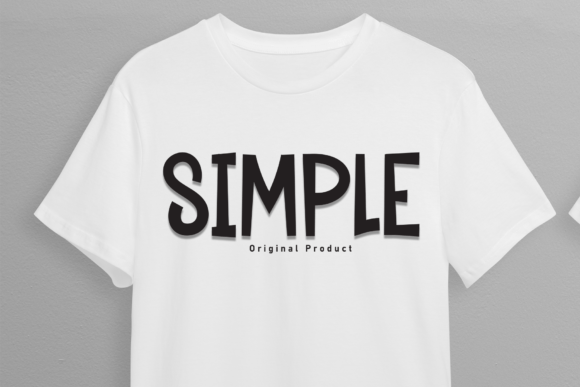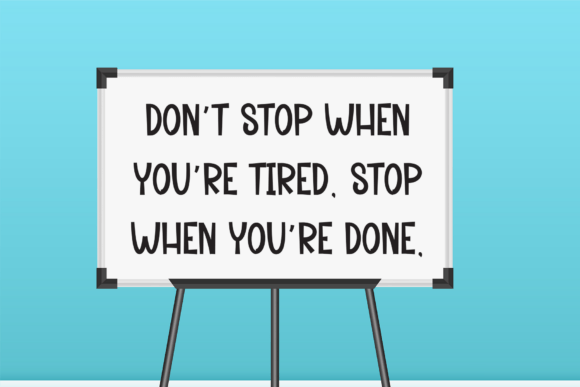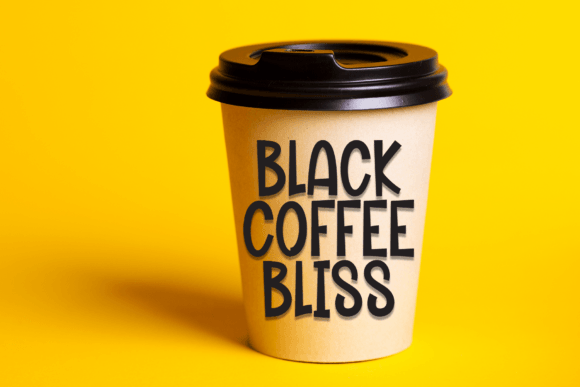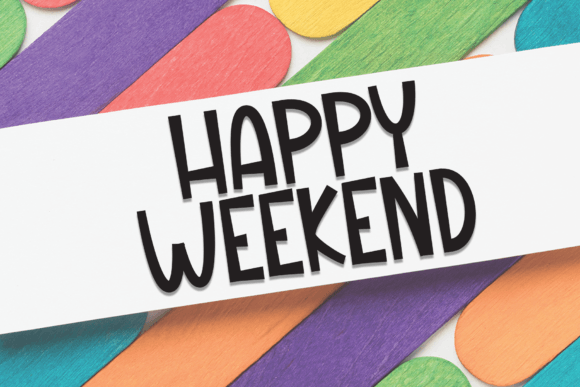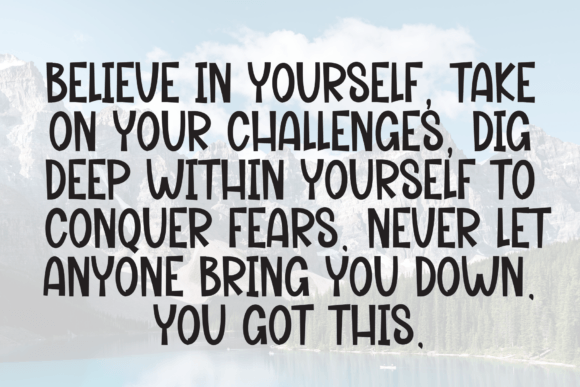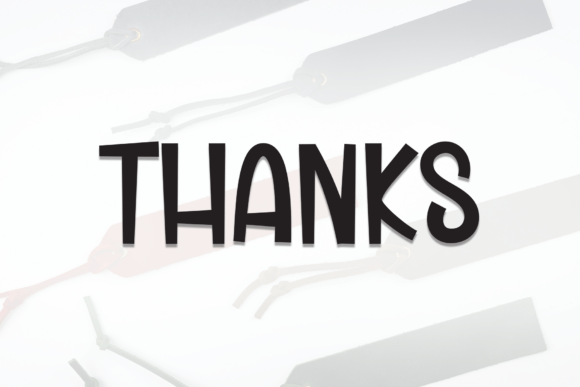
Introducing Bookmark Font: Adding a Touch of Personality to Your Designs
Are you tired of using the same old fonts in your designs? Do you want to add a touch of personality and whimsy to your work? Look no further than Bookmark Font, a delightful and amiable handwritten display font that’s perfect for infusing soul and personality into your designs.
A Charming and Playful Aesthetic
Bookmark Font boasts a charming and playful aesthetic that’s sure to breathe life into your wedding invitations, greeting cards, or any design craving a sprinkle of fun. Its typographical touch is as captivating as it is casual, promising to not only deliver a message but ensure it’s received with a warm, friendly energy.
Bookmark Font is a versatile font that’s perfect for designers and crafters alike. Whether you’re creating wedding invitations, greeting cards, or social media graphics, this font is sure to add a touch of personality to your work. Its playful and charming aesthetic makes it ideal for:
What Sets Bookmark Font Apart
So, what sets Bookmark Font apart from other fonts? Here are a few key features that make it a standout:
- Handwritten aesthetic: Bookmark Font has a beautiful, handwritten aesthetic that’s sure to add a touch of personality to your designs.
- Playful and charming: This font is playful and charming, making it perfect for designs that need a sprinkle of fun.
- Versatile: Bookmark Font is versatile and can be used for a variety of design projects, from wedding invitations to social media graphics.
- Easy to read: Despite its playful aesthetic, Bookmark Font is easy to read, making it perfect for designs that need to communicate a message.
- Pair it with other fonts: Bookmark Font pairs well with other fonts, so don’t be afraid to experiment with different combinations.
- Use it for headings: This font is perfect for headings and titles, so use it to add a touch of personality to your designs.
- Experiment with colors: Bookmark Font looks great in a variety of colors, so experiment with different hues to find the perfect one for your design.
In conclusion, Bookmark Font is a delightful and amiable handwritten display font that’s perfect for designers and crafters looking to add a touch of personality to their work. Its charming and playful aesthetic makes it ideal for a variety of design projects, from wedding invitations to social media graphics. With its versatility, ease of use, and beautiful handwritten aesthetic, Bookmark Font is sure to become a favorite in your design toolkit.